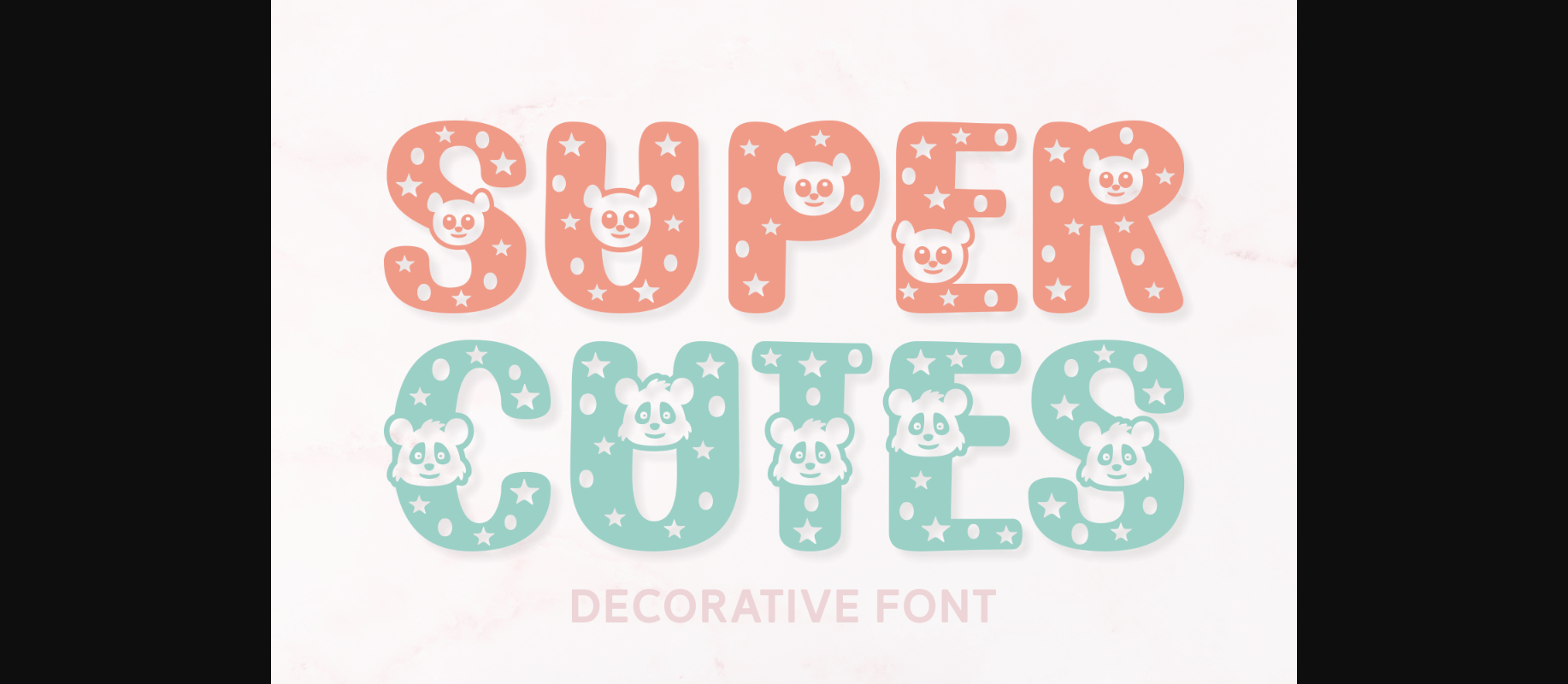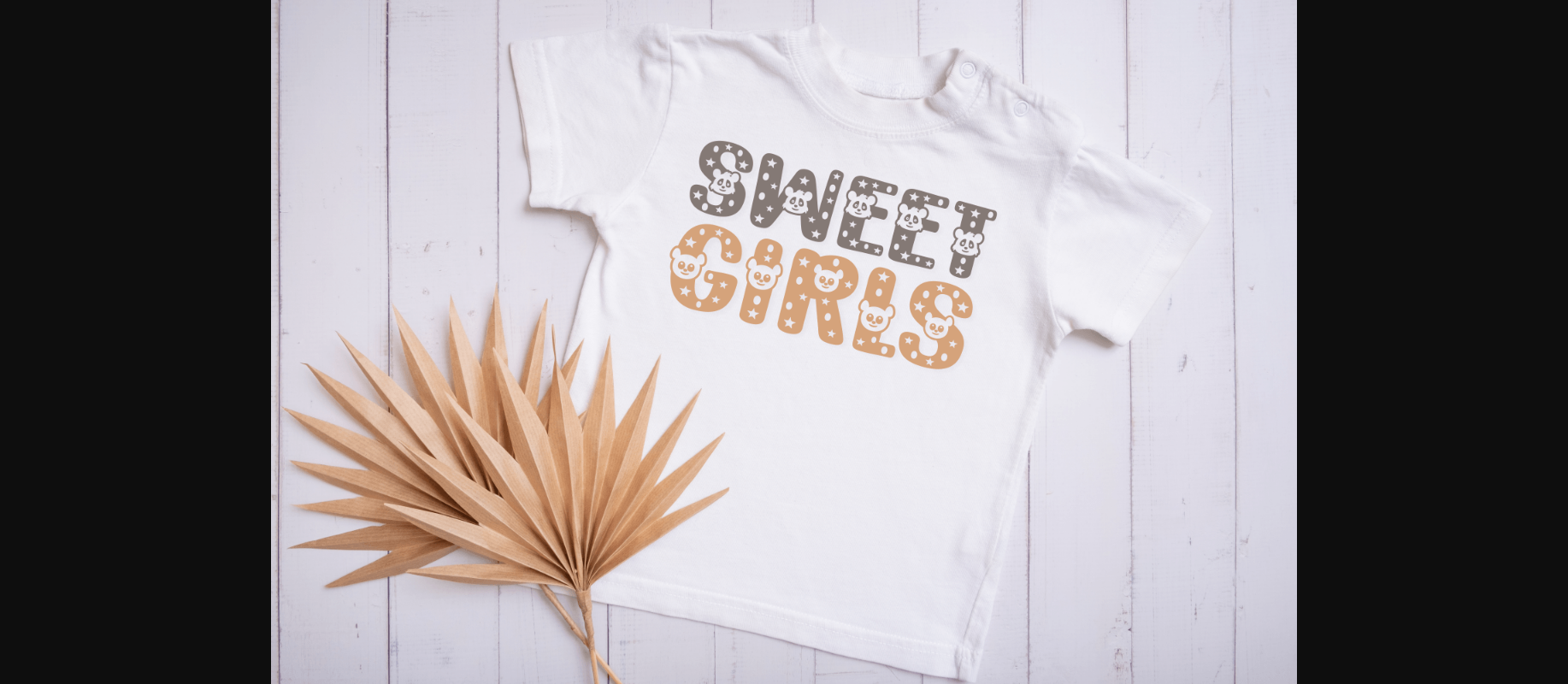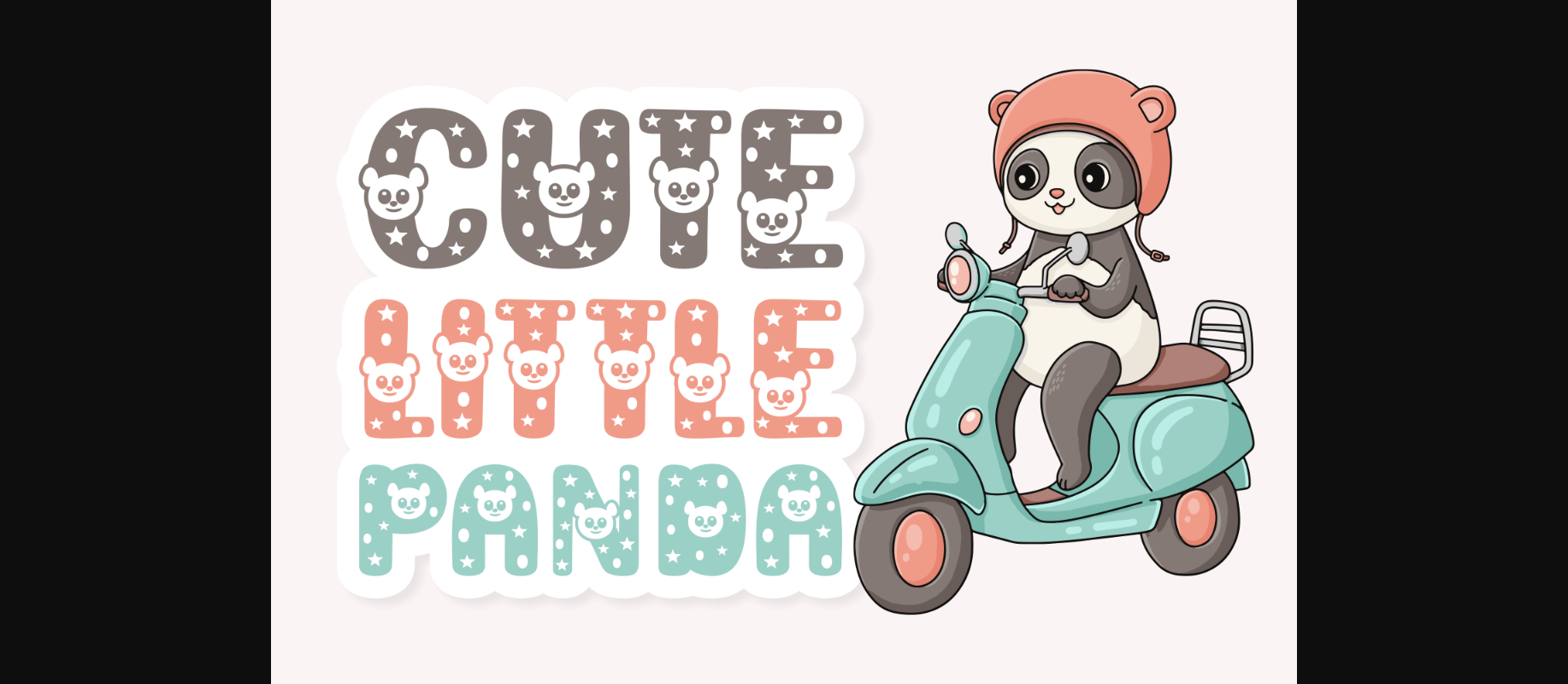
About Super Cutes Font
Super Cutes is a lovely and adorable decorative font. Masterfully designed to become a true favorite, this font has the potential to bring each of your creative ideas to the highest level!